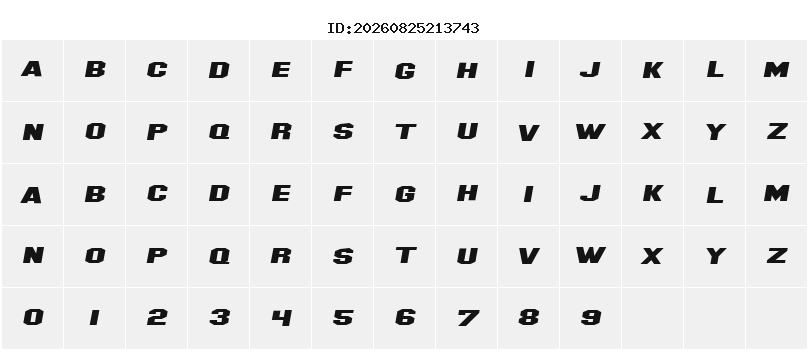
SF Hollywood Hills Extended Preview
• Font Name: SF Hollywood Hills Extended
• Full Font Name: SF Hollywood Hills Extended Italic
About SF Hollywood Hills Extended.ttf
SF Hollywood Hills Extended.ttf is a modern, elegant sans-serif font designed for ultimate readability and visual harmony. Perfect for branding, headlines, web design, and print materials.